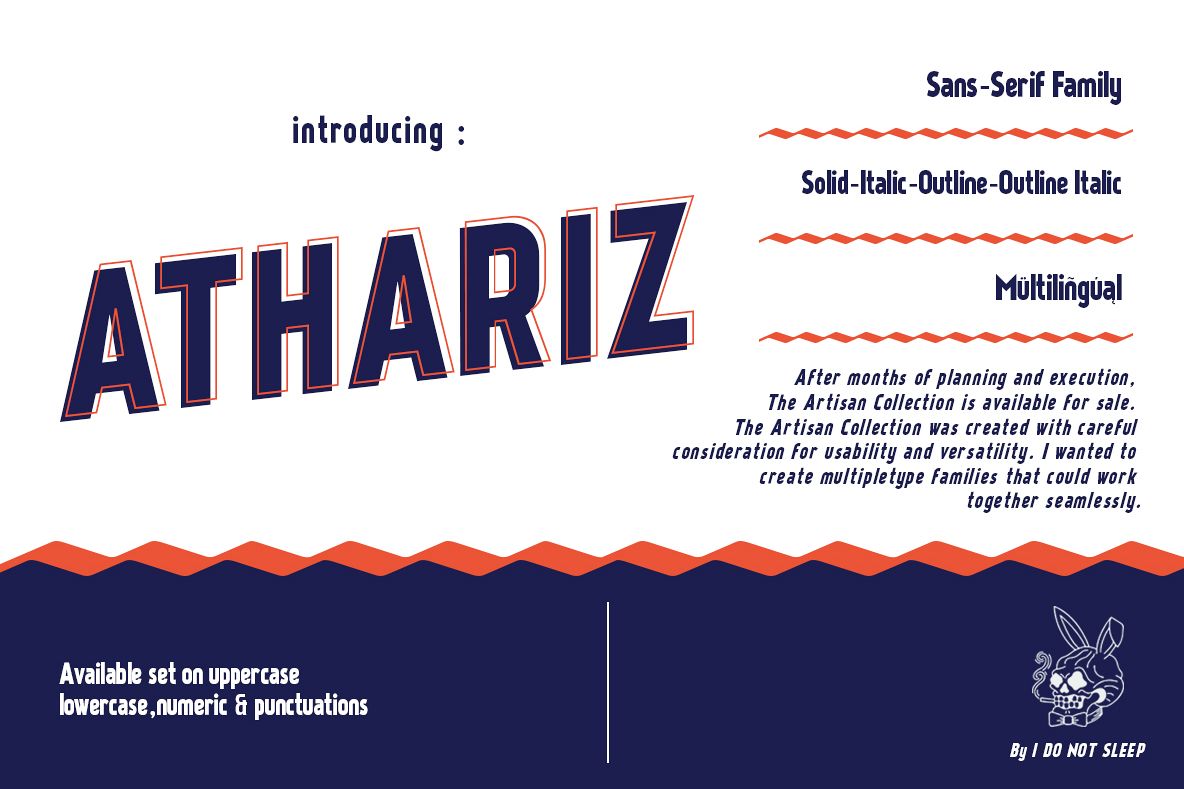
Athariz
After months of planning and execution, Athariz is available for sale. Athariz was created with careful consideration for usability and versatility. I wanted to create multiple type families that could work together seamlessly.
Athariz will work very well for Restaurant, Brewing Company, Labelling, Menu's, Signage, Websites, Apparel, Coffee Shops, posters, branding, logos, magazine, namecard, design and any product that you need.